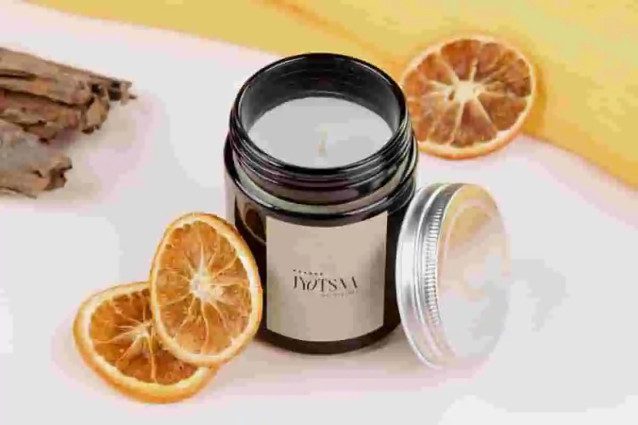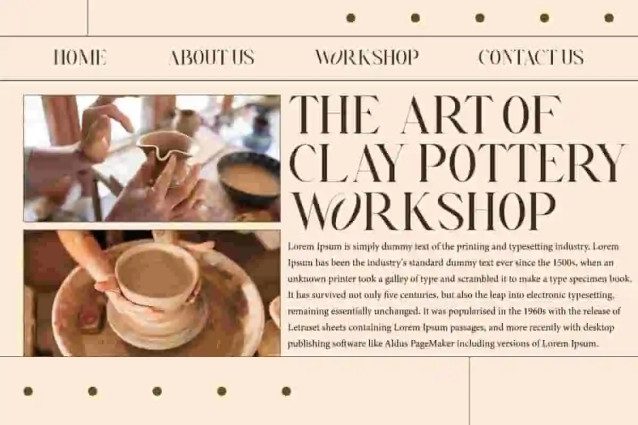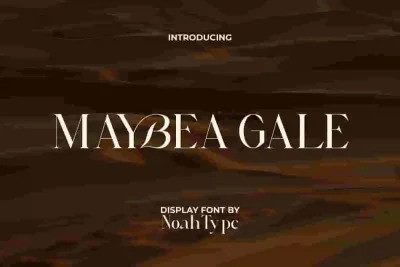
Maybea Gale Font
Maybea Gale Font is a stunning elegant serif display font by NoahType. This font has a neat and charming appearance so it can be paired with other types of fonts to make it more beautiful. It will be good for any designs, such as poster, website, stationery, brand image, invitation, custom design, label, marketing material, menu, product packaging, quotes, signage, and many more!
Maybea Gale Font includes a complete set of Uppercase and Lowercase Basic Characters, Numerals, Punctuation and Symbol. This font also contain Ligature character that will give beautiful look and also a perfect choice for many industries, such as fashion, beauty product, event or festival, accessories, advertising, movie, photography, printing, publishing, spa and salon, travel, etc.